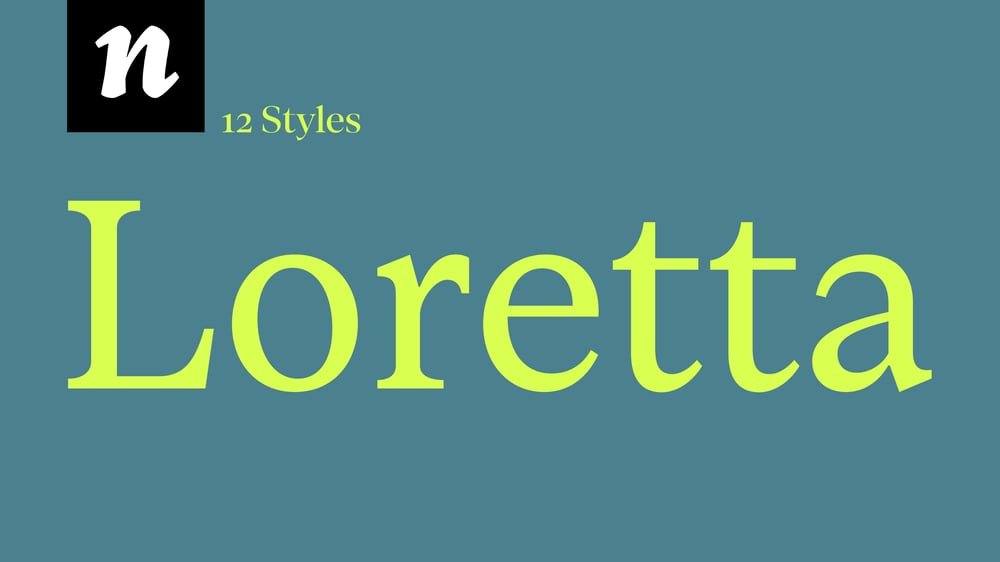
Loretta Font Family was designed by Joana Correia, Abel Martins and published by Nova Type Foundry. Loretta contains 12 styles and family package options. Loretta is an elegant contemporary serif typeface for body text. It has roots in expressive calligraphic motions, compelled into stable typographic shapes. Loretta is perfect for editorial use in books and on the web because it has low contrast and open shapes that give it ideal legibility. The italic is vibrant and complements the regular with style.